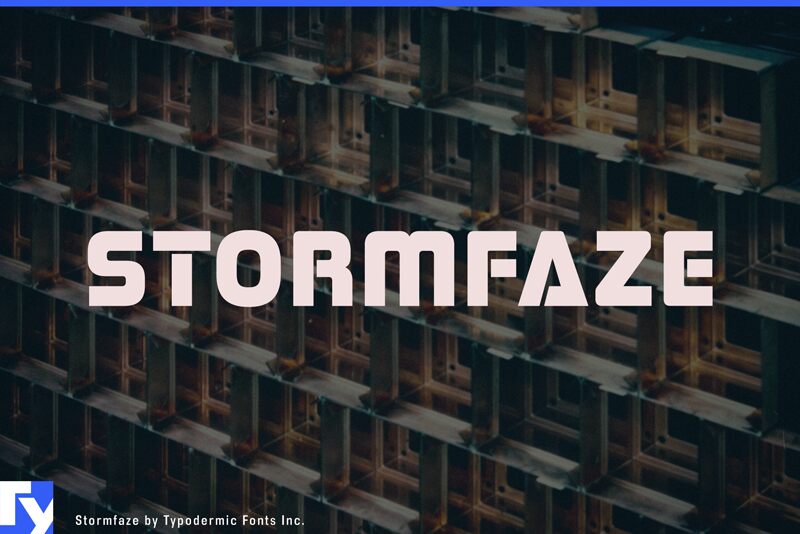
Stormfaze-Regular
Stormfaze is a high-tech, science fiction themed headline font. Stormfaze was created in June of 1996 and released in the summer of 2015.
Ray Larabie